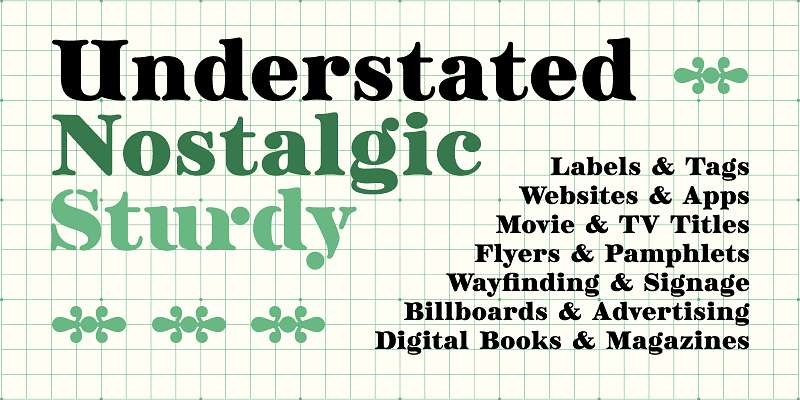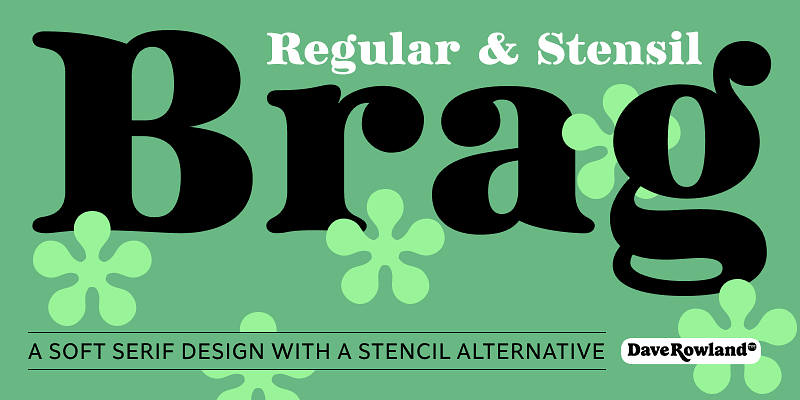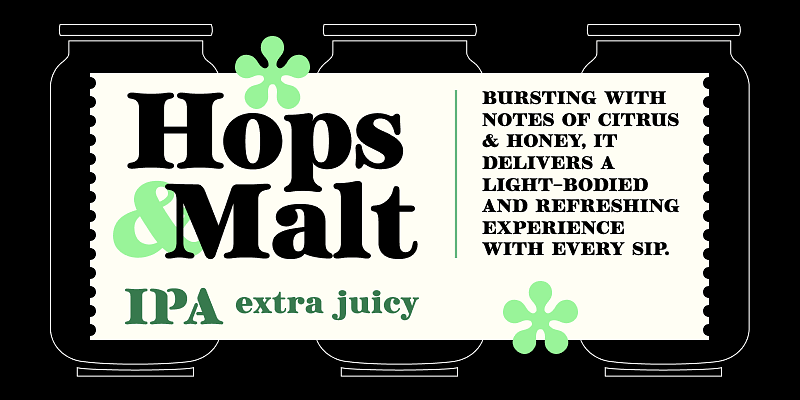
Brag is a squat, bold, soft serif design with a stencil alternative. It is transitional and vintage in a way that feels like it was taken from an old biscuit tin or ephemeral fruit crate label. Understated, friendly, and sturdy without being bland, cloying, or stuffy. Brag is eager to be used on all-natural food packaging, gardening equipment displays, collectible books of poetry, and microbrewery branding. Pairs well with others but can stand on its own; give Brag a try!